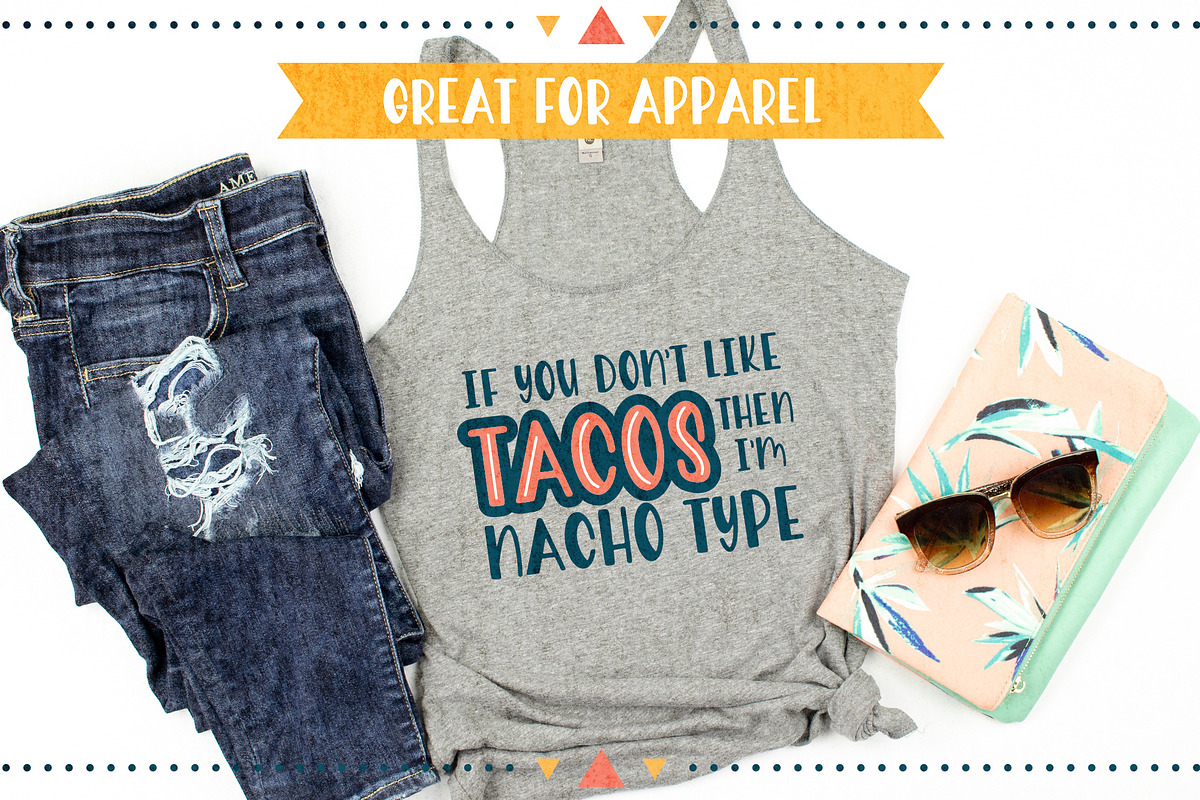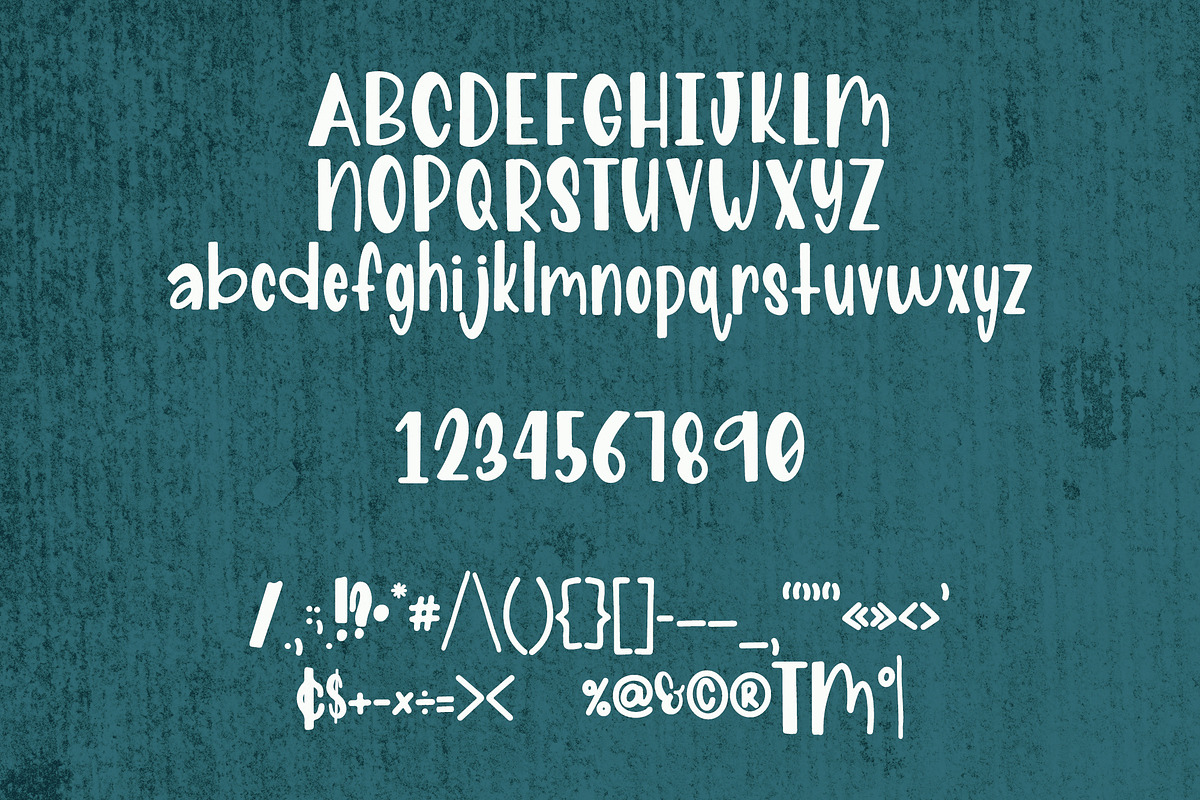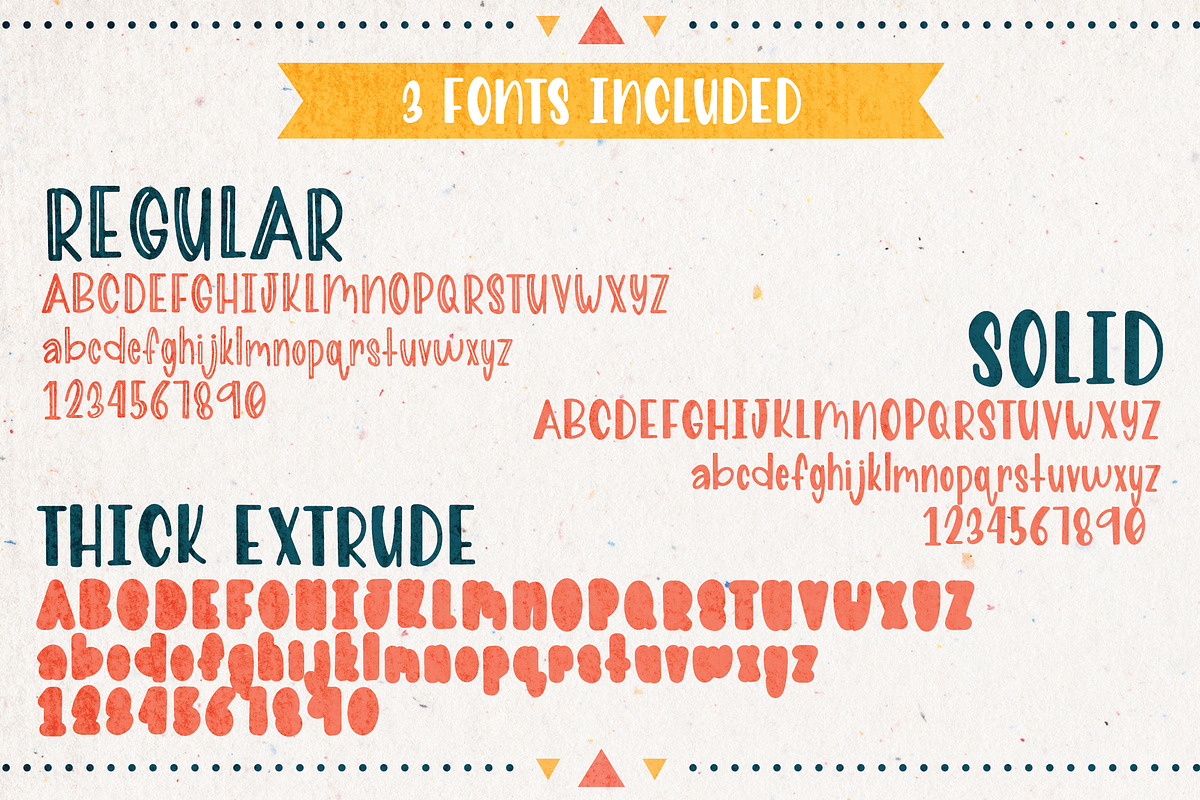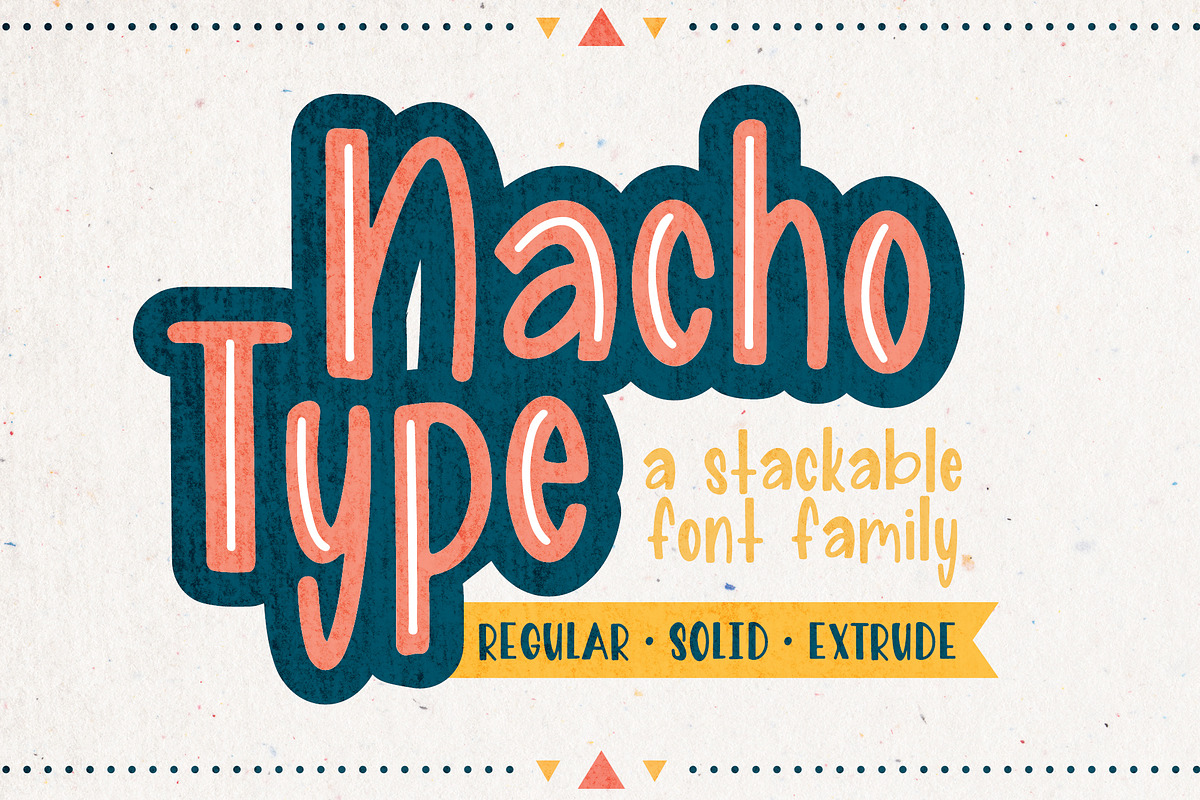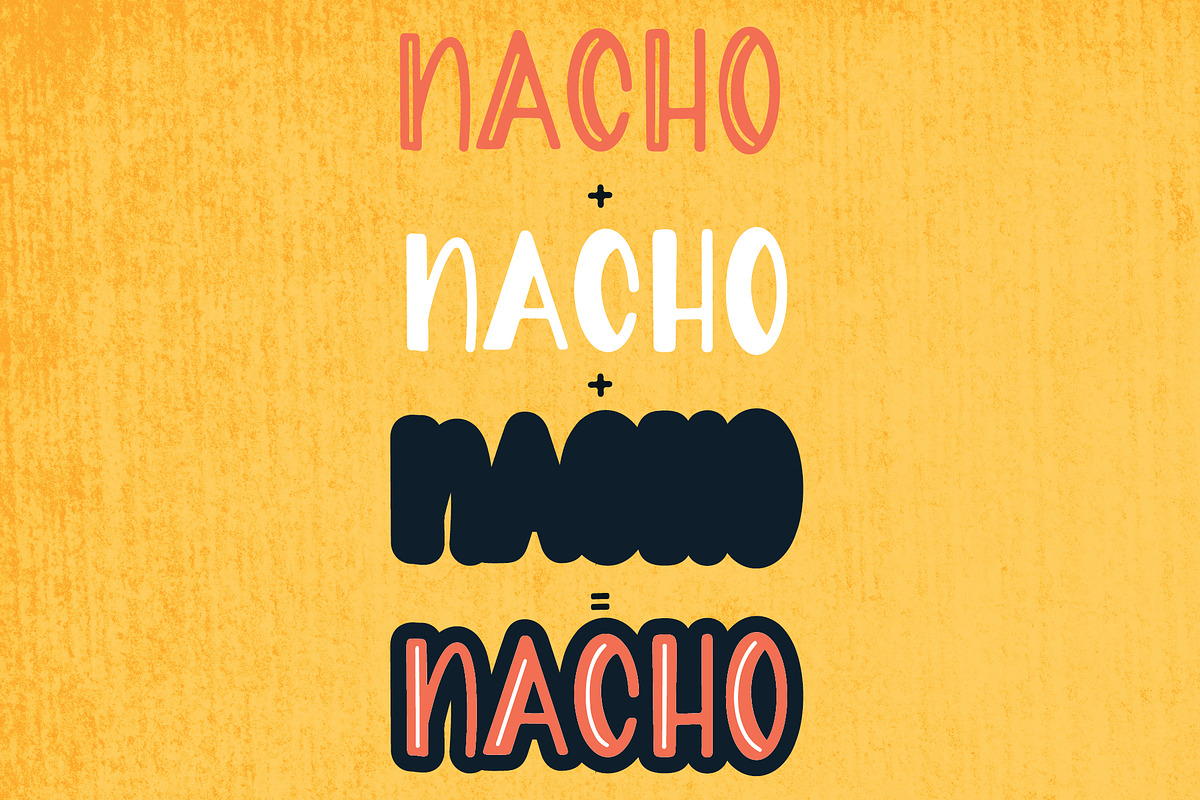
Nacho Type - Stackable Font Family
Nacho Type is a hand-lettered feminine layered font family.
It is perfect for all of your design work including holiday decorations, cinco de mayo t-shirts, easter baskets and mugs, party banners, kids back to school school activity sheets, or print on demand products to name a few. Great for any diy project or cutting machine design such as welcome home and birthday banners.
This fun and festive stackable font family not only includes the Regular Nacho Type version, but also the Solid and Thick Extrude versions so that you can stack and layer to add some extra character to your project. Use it as a font for Cricuit, Silhouette, or any vinyl cut machine. Here are the 3 font styles included:
- Nacho Type Regular
- Nacho Type Solid
- Nacho Type Thick Extrude